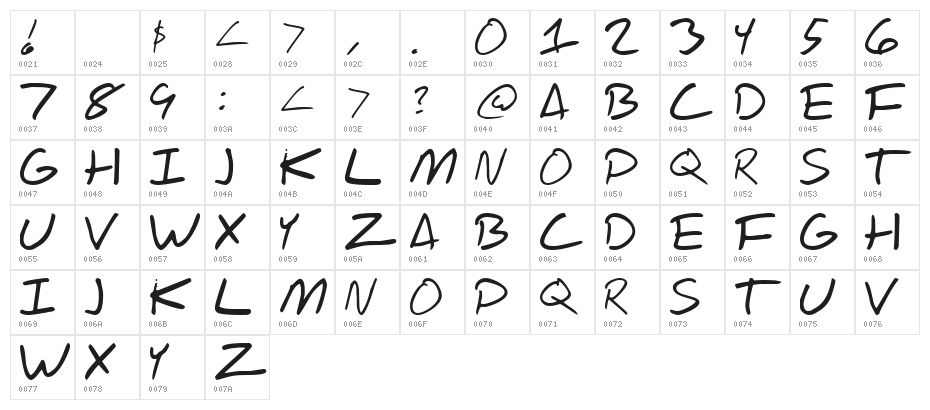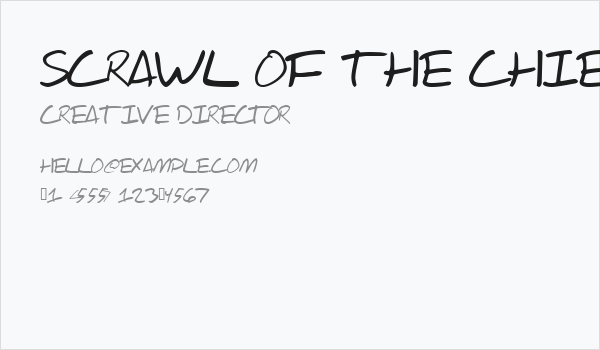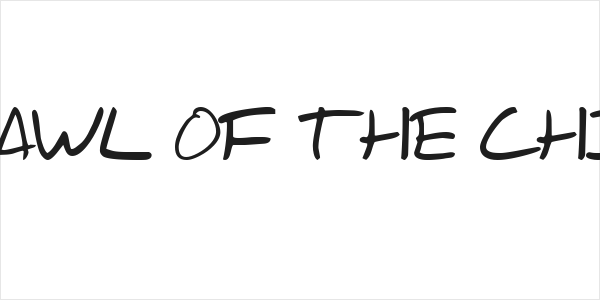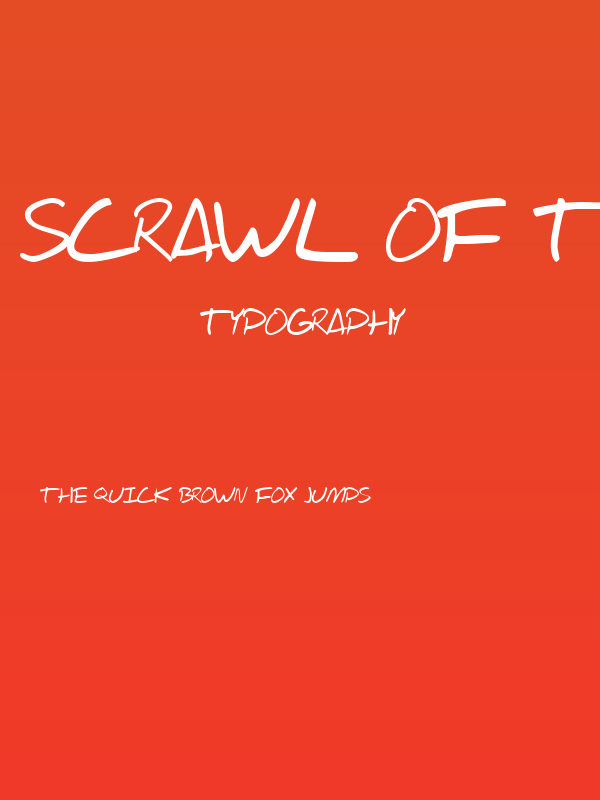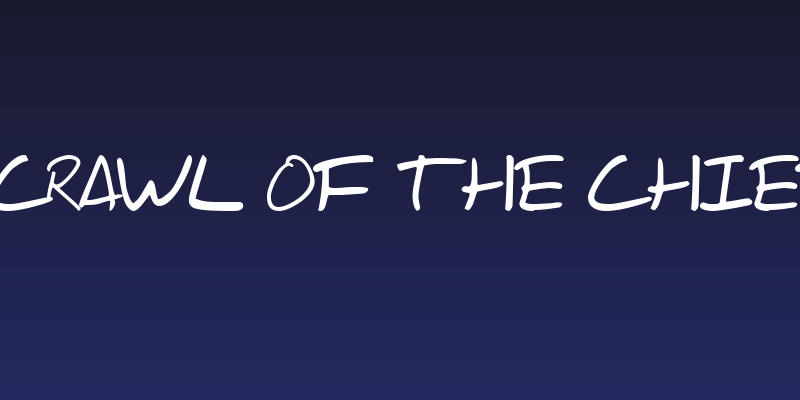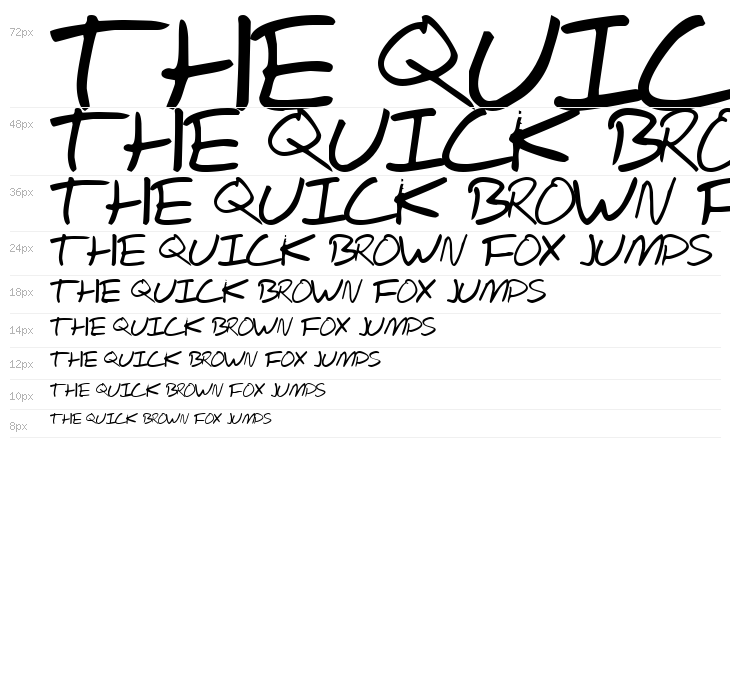
Scrawl Of The Chief Font
Scrawl Of The Chief Description
This font features a dynamic and energetic handwritten style, characterized by its bold and slightly irregular strokes that mimic the natural flow of handwriting. The uppercase and lowercase letters maintain a consistent slant, adding to the casual and informal appearance. The numbers and special characters follow the same lively aesthetic, making the font suitable for projects that require a personal touch. Its unique style is both approachable and expressive, ideal for creative and artistic applications.
| Proposed Projects | Ideal for greeting cards, personal branding, artistic posters, and creative social media graphics. |